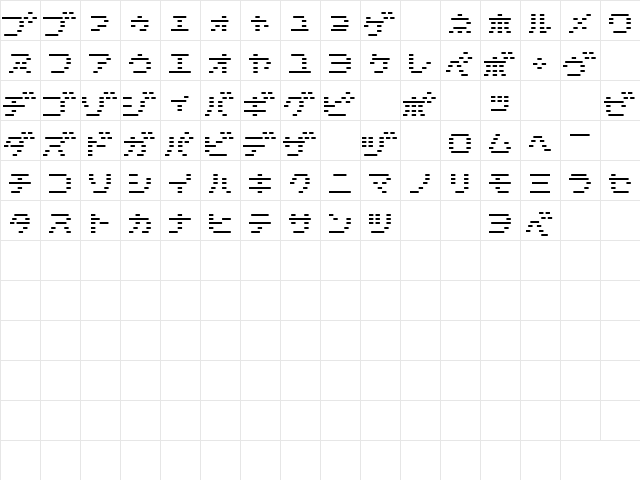
D3 DigiBitMapism Katakana Thin Regular
Design Context for D3 DigiBitMapism Katakana Thin Typeface
D3 DigiBitMapism Katakana Thin celebrates the constraints of early digital type, turning pixel geometry into a distinctive and immediately recognisable style.
Well-suited to indie game interfaces, retro computing aesthetics, and pixel art-adjacent design work.
Pro Tip: Use D3 DigiBitMapism Katakana Thin at sizes that align with its pixel grid for the sharpest rendering — scaling to non-integer multiples can introduce unwanted blur.